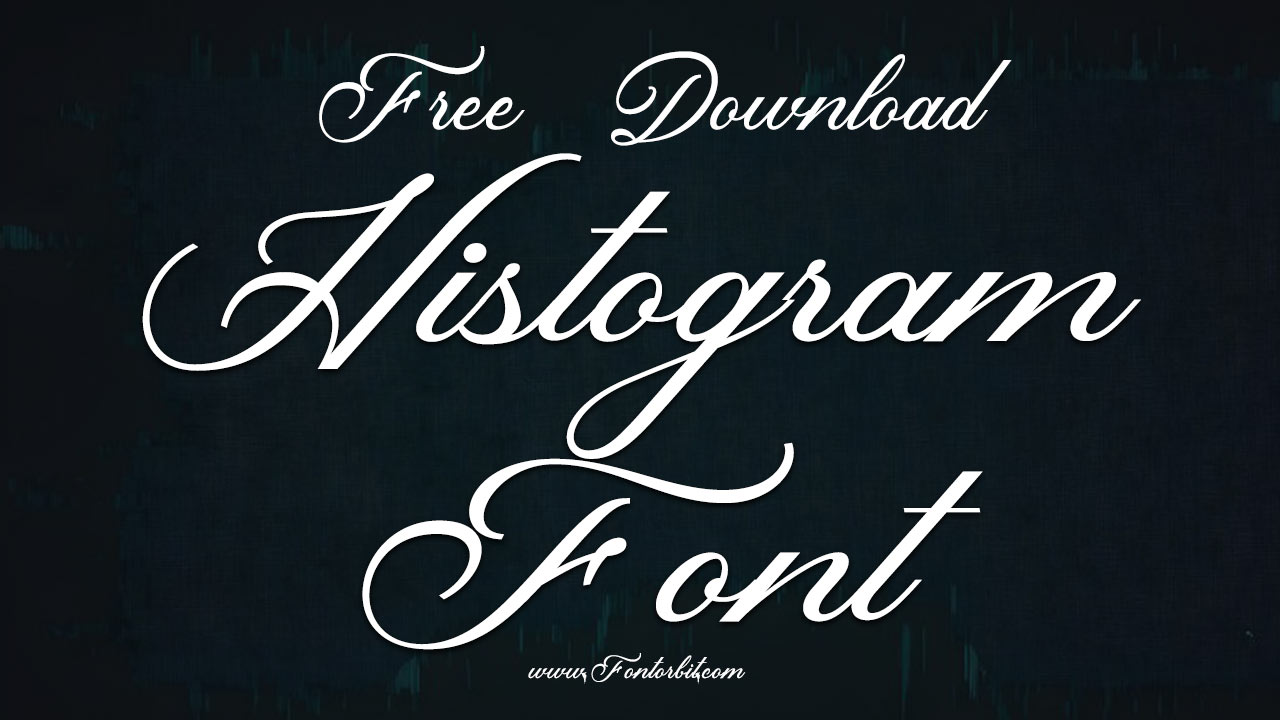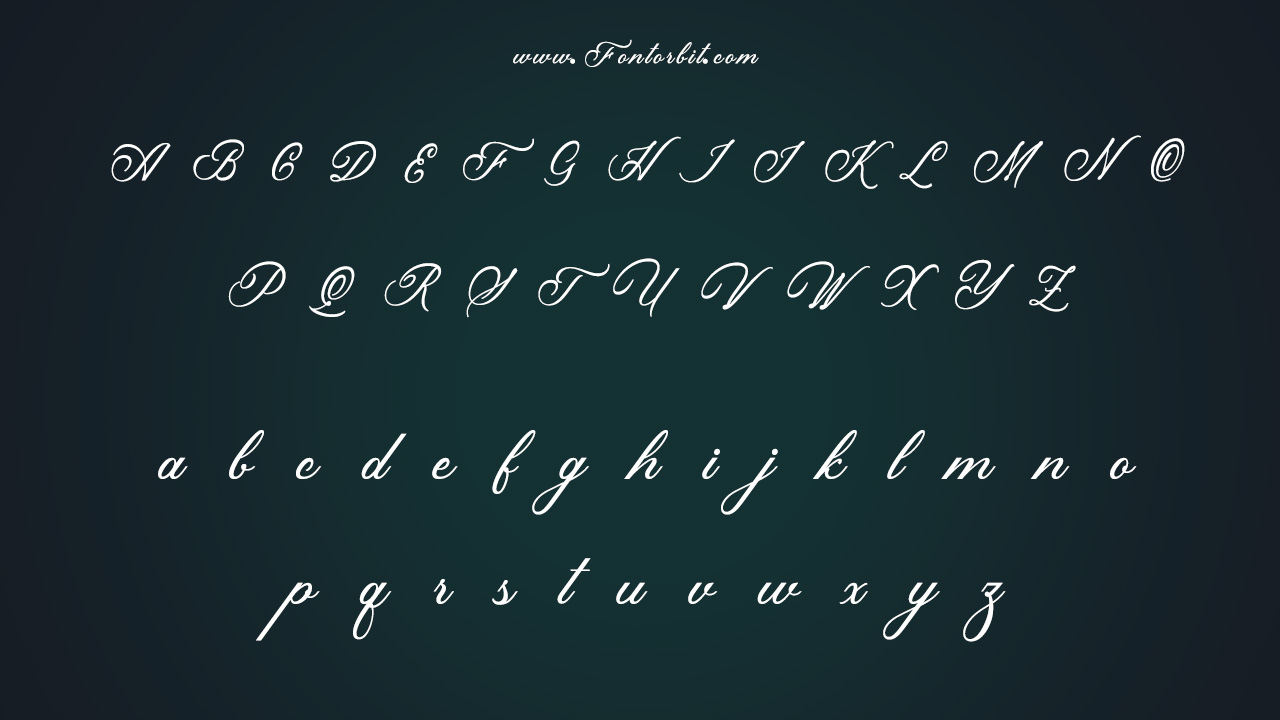
The Histogram Font, designed by Asep Rendi and generously shared as a demo by Arendxstudio, is a modern classic script font inspired by classic handwriting. Its relaxed letterforms and handwritten aesthetic add warmth and personality to a variety of design projects.
The Histogram Font Family
Using Occasions of the Font
- Greeting Cards
- Blog Headers
- Personalized Projects
- Informal Branding
Histogram Font’s casual script style is perfect for designs that need a laid-back, friendly vibe. Its handwritten aesthetic adds a touch of warmth and personality, making it ideal for a range of informal and personal design applications.
Histogram Font offers a blend of informality, expressiveness, and readability. Its relaxed letterforms and handwritten style make it a standout choice for adding warmth and personality to your design projects. The demo version provides a taste of its charm, with the full version offering additional features and a commercial license.
1.What Is The Histogram Font?
Histogram Font is a casual script typeface inspired by classic handwriting. It features relaxed letterforms and a handwritten aesthetic that adds warmth and personality to designs.
2.Who Designed The Histogram Font?
The Histogram Font was designed by Asep Rendi and is shared as a demo by Arendxstudio.
3.What Are The Key Features Of The Histogram Font?
Key features include casual letterforms, a handwritten aesthetic, versatility for various designs, expressive typography, and customization options such as alternate characters and ligatures.
4.How To Use Histogram Font In Design Projects?
Use Histogram Font for greeting cards, invitations, social media graphics, and other informal designs to add a friendly and personal touch.
5.What Are The Alternatives To The Histogram Font?
Similar fonts include Pacifico, Brush Script MT, and Allura, which offer stylish handwritten and script aesthetics.